As designers, we’re constantly seeking typography that transports viewers into specific worlds and environments. And when it comes to evoking the lush, untamed atmosphere of a rainforest or safari, jungle fonts are the perfect typographic tool to bring that wild energy to life.
Jungle fonts encompass a diverse range of styles – from rough-hewn letterforms resembling carved wood to vine-entangled characters that seem to have been reclaimed by nature. They’re perfect for adventure branding, eco-tourism, nature documentaries, tropical-themed events, and so much more.
Let’s venture into the typographic wilderness together!
The Most Exotic Jungle Fonts of 2026
I’ve scoured the typographic landscape to bring you the absolute best jungle fonts available right now. Each one brings something unique to the table while capturing that essential wild, untamed spirit. Here they are:
Jungle Land
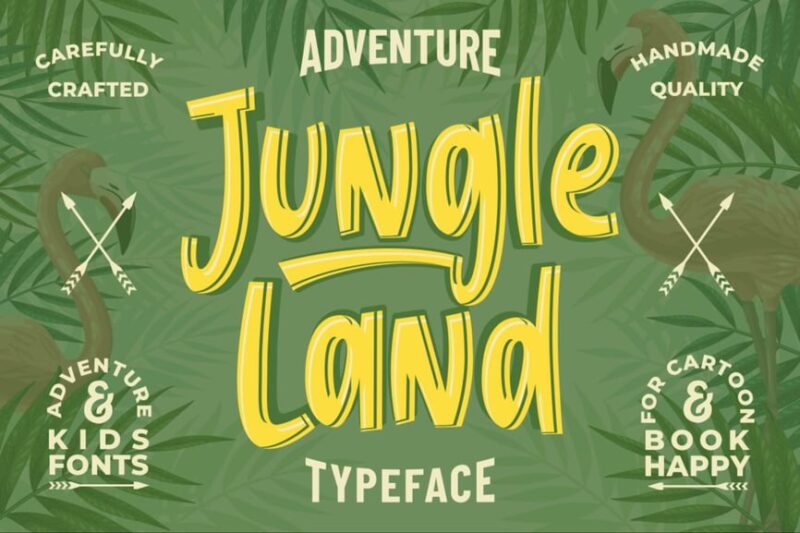
Jungle Land is a quirky sans-serif font with a decorative twist. Its playful design makes it ideal for event-related projects, conveying a sense of adventure and fun while maintaining readability.
Roaring Jungle
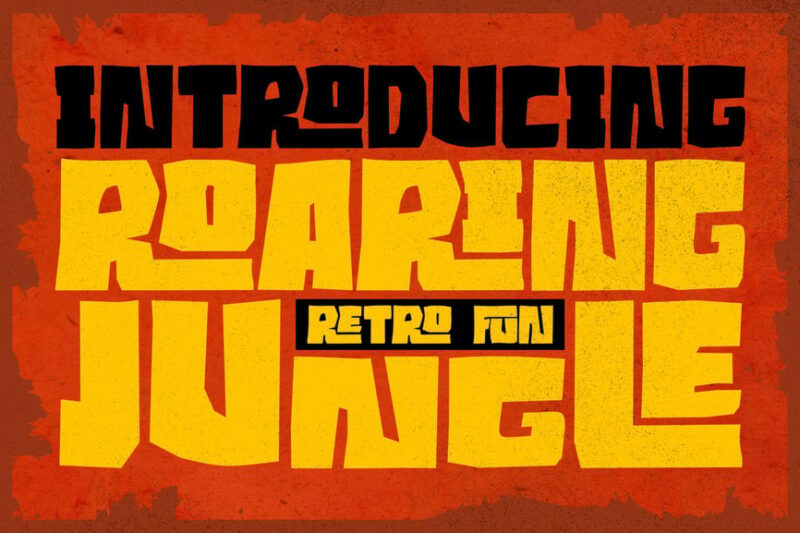
Roaring Jungle is a decorative font with a retro comic book feel. It includes symbolic elements that add a wild, untamed character to designs, perfect for projects requiring a bold, adventurous aesthetic.
The Jungle Typeface
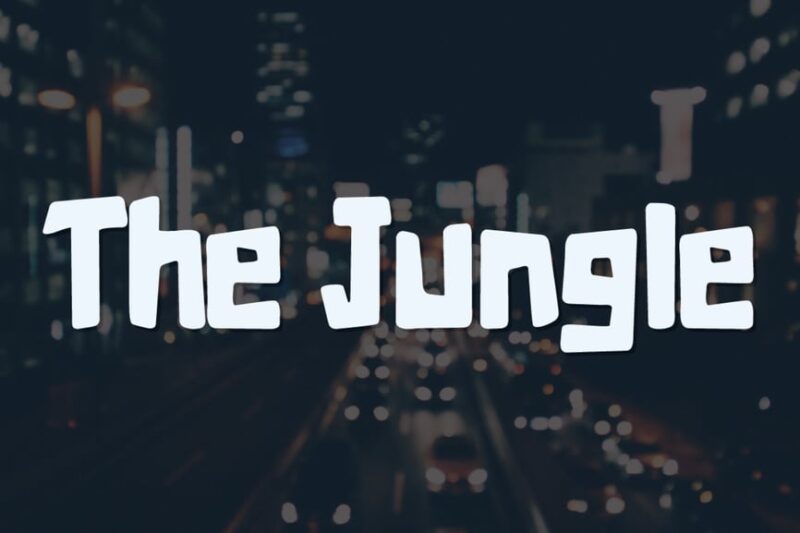
The Jungle Typeface is a script and handwritten font that mimics brush strokes, creating a sense of raw adventure. Its organic, hand-crafted appearance makes it ideal for designs that aim to evoke exploration and wilderness.
Jungle Font
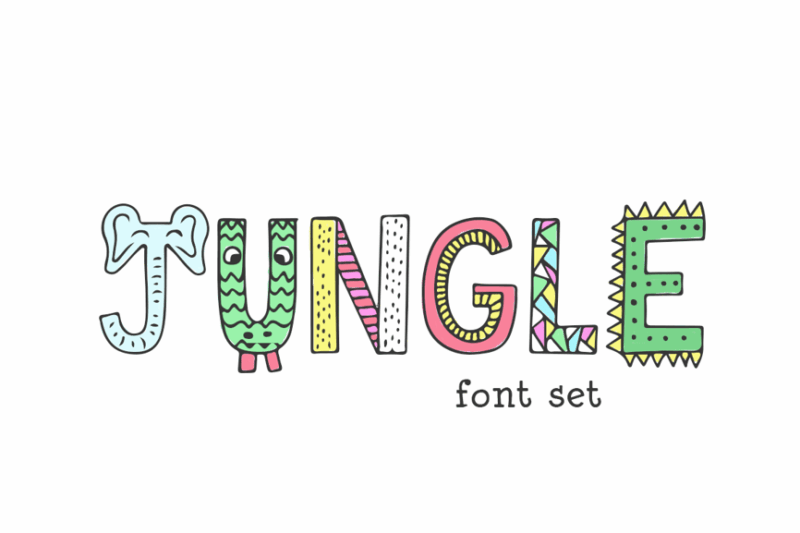
Jungle Font is a playful sans-serif designed with children in mind. Its rounded edges and nature-inspired forms make it perfect for kid-friendly projects related to jungle themes or wildlife education.
Jungle Friends
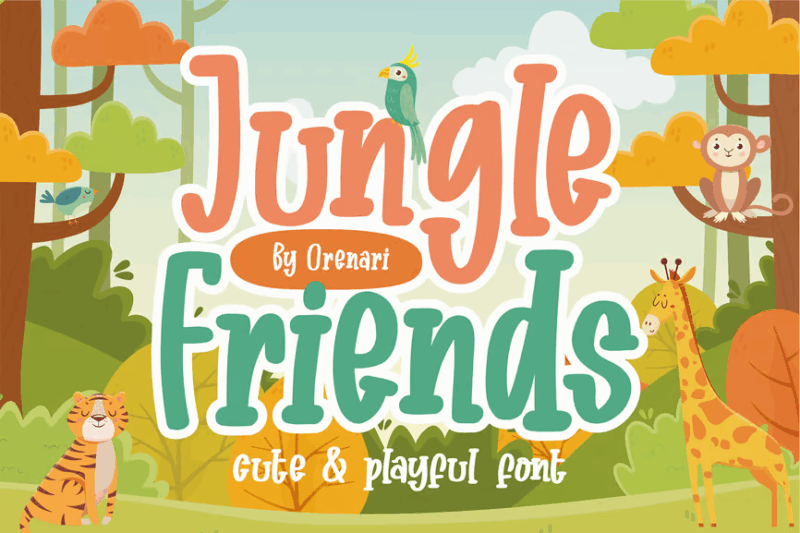
Jungle Friends is a whimsical decorative font featuring unicorn and rainbow elements. This font brings a magical, fantastical twist to jungle-themed designs, ideal for children’s books or imaginative projects. More friendly fonts here.
Jungle Cruise – Display Font
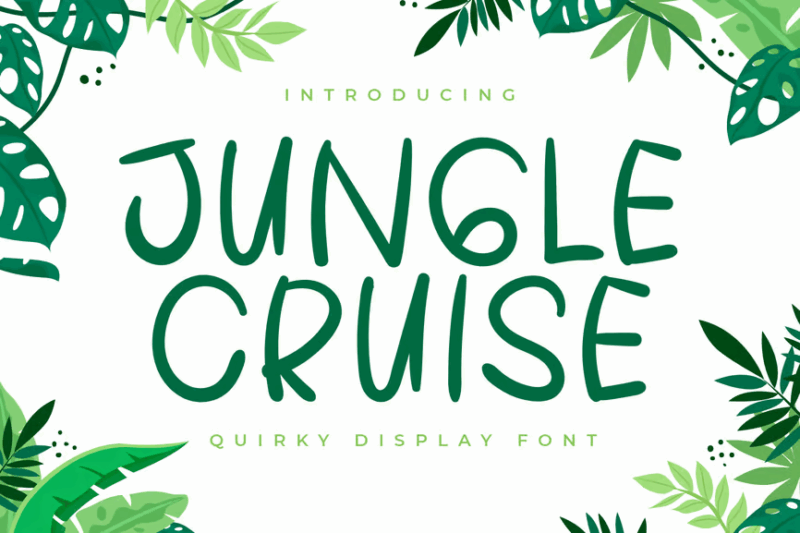
Jungle Cruise is a decorative display font with a handwritten, script-like quality. Its adventurous style evokes feelings of exploration and discovery, making it perfect for travel-themed designs or safari-inspired projects.
Jungle Bird
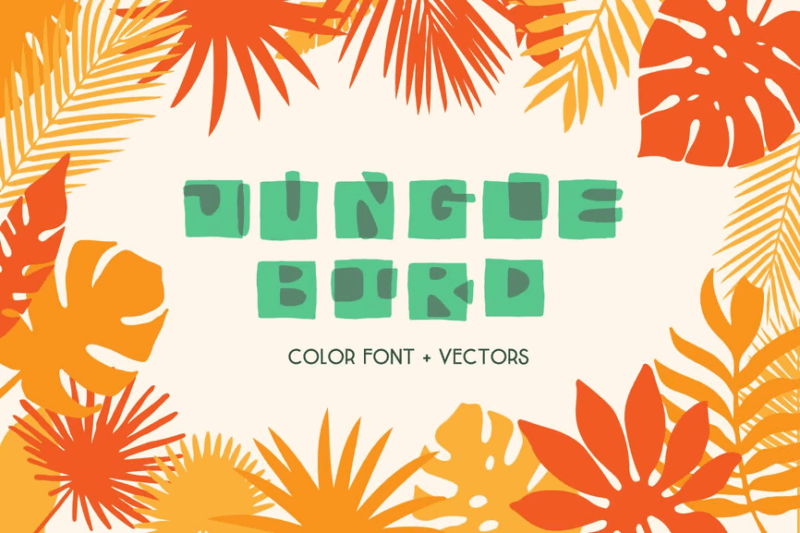
Jungle Bird is a quirky font family that includes sans-serif, script, handwritten, symbolic, and decorative styles. This comprehensive set is perfect for creating cohesive jungle-themed designs across various media, from blogs to branding materials.
The Moot Jungle Nature Typeface
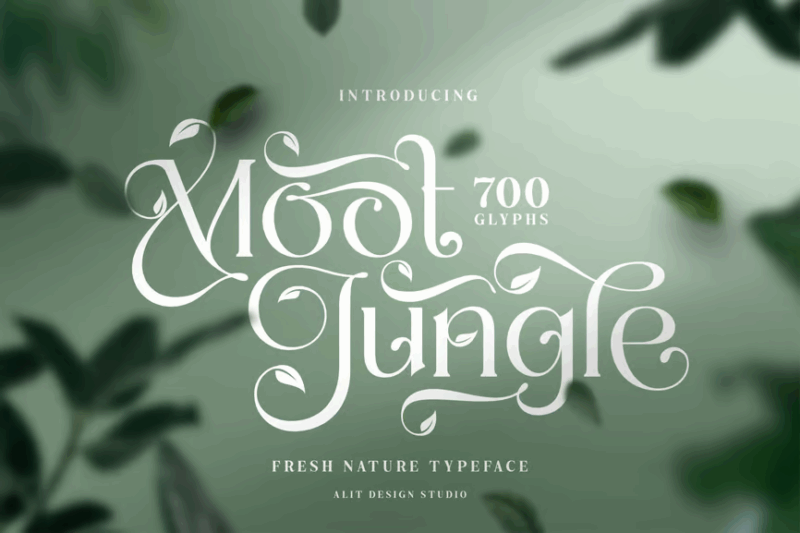
The Moot Jungle Nature Typeface is a serif font with leaf-inspired elements. Its elegant design combines natural forms with classic typography, making it ideal for sophisticated nature-themed projects or eco-friendly branding.
Tropical Jungle
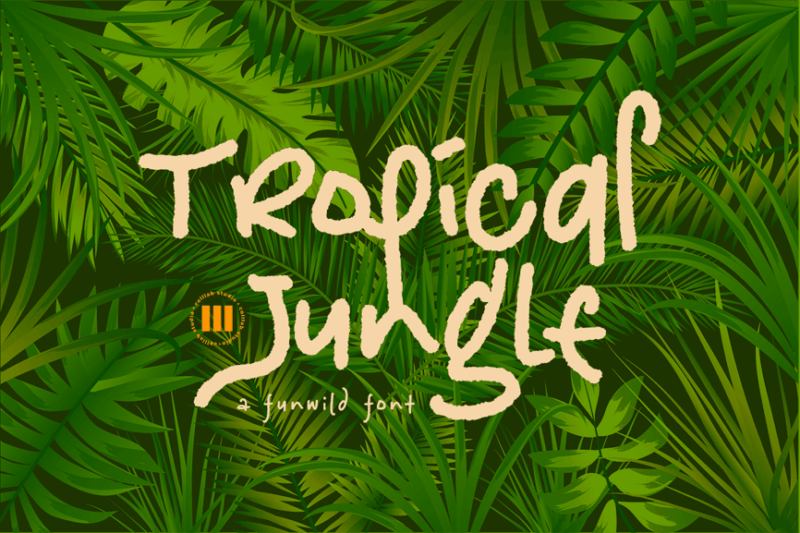
Tropical Jungle is a script and handwritten font that beautifully combines calligraphy and modern calligraphy styles. Its flowing, organic lines evoke a sense of lush, tropical vegetation, making it perfect for designs that require an exotic, natural feel.
Deep Jungle – Display Font
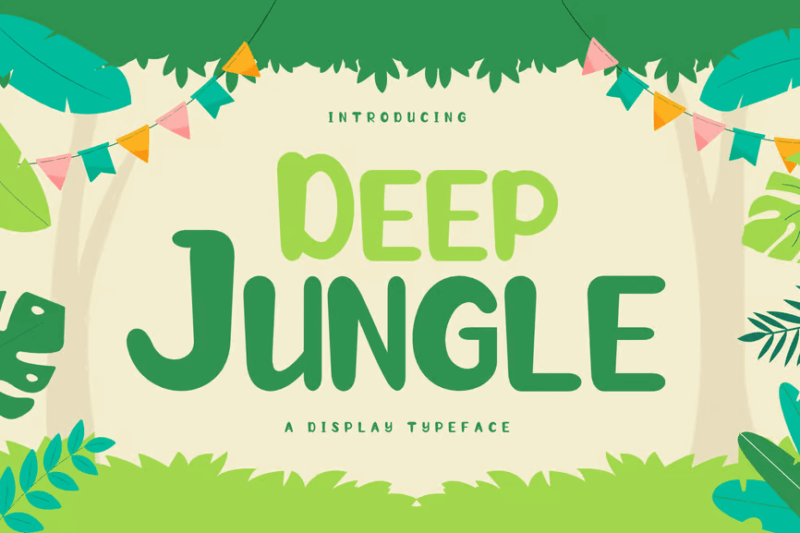
Deep Jungle is a bold, decorative display font designed for impactful typography. Its strong, textured appearance evokes the dense, mysterious atmosphere of a jungle, perfect for creating eye-catching headlines or logos.
Zoocute Jungle Fun Font
Zoocute Jungle Fun Font is a playful sans-serif with an animal-inspired twist. Its casual, friendly design makes it perfect for children’s products, zoo-related materials, or any project requiring a light-hearted, nature-themed touch.
Jungle Adventurer – Gaming font
Jungle Adventurer is a sans-serif gaming font designed for adventure-themed video games. Its bold, slightly rugged appearance captures the essence of exploration and excitement, making it ideal for game interfaces or promotional materials.
Jungler Traveling – Adventure Font
Jungler Traveling is a sans-serif adventure font with a chalk-like texture. Its handcrafted appearance gives designs a spontaneous, exploratory feel, perfect for travel blogs, outdoor adventure branding, or nature-themed projects.
Tropical Jungle – Kids Font
Tropical Jungle is a fun sans-serif font designed for children’s books and comics. Its playful, rounded letterforms capture the spirit of jungle adventures, making it ideal for kid-friendly educational materials or story books.
So, whether you’re designing a safari tour logo, packaging for exotic foods, or materials for a conservation organization, consider how jungle typography might help your project break through the visual noise and connect with audiences on a primal, emotional level.